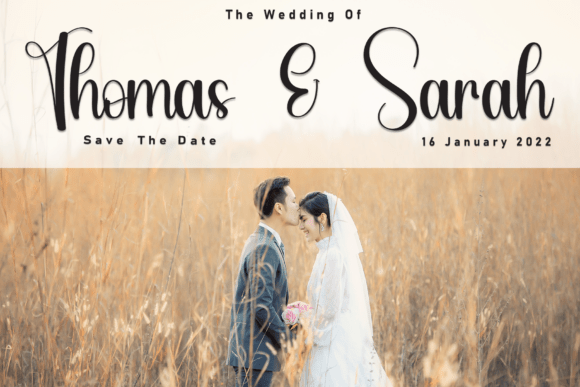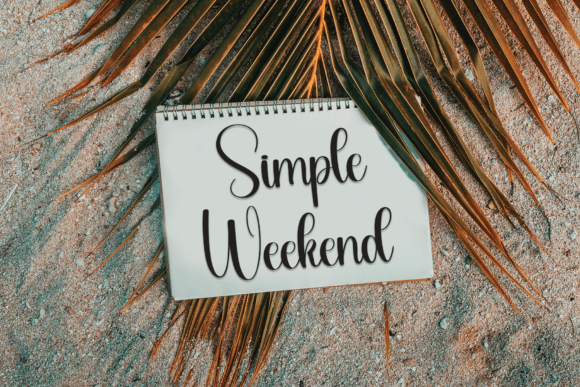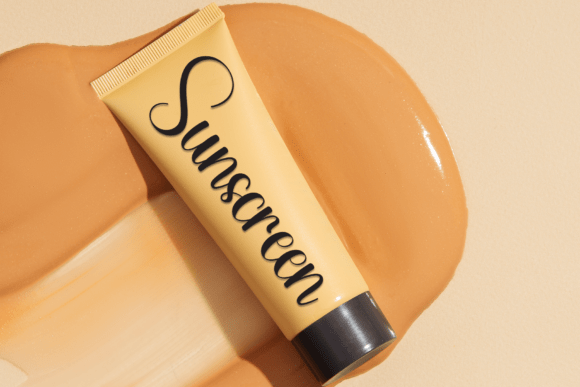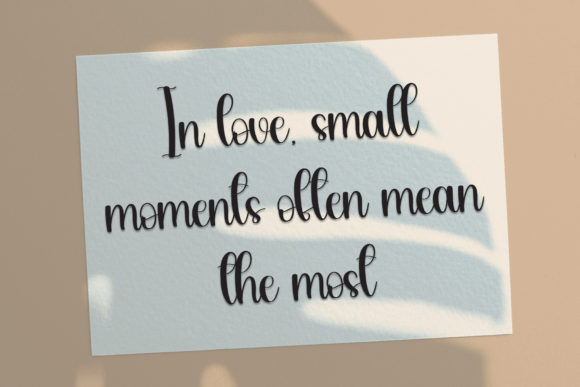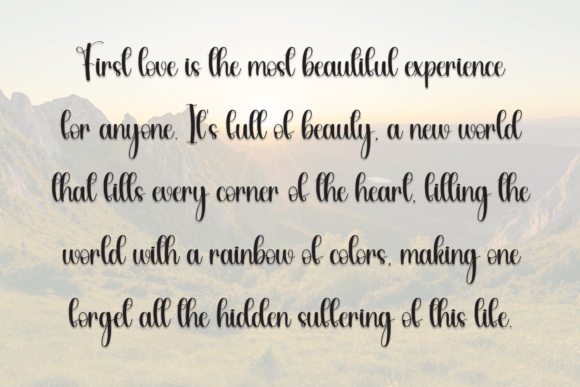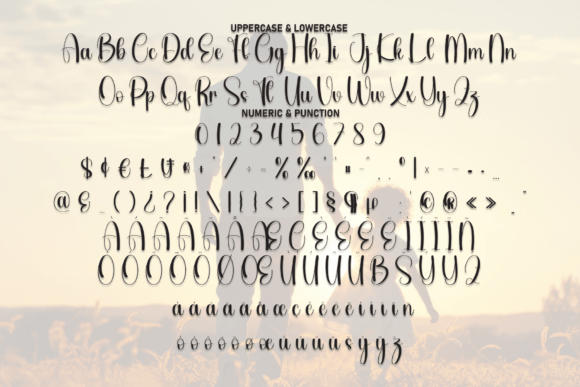
The Enchanting World of Father Font: A Designer’s Dream Come True
I’ll never forget the moment I stumbled upon Father Font while working on a wedding invitation project for a dear friend. The client wanted something elegant, whimsical, and utterly unique. As I scrolled through font after font, nothing seemed quite right – until I laid eyes on Father Font. Its captivatingly hand-forged design and irresistible charm instantly won me over. I knew right then and there that this typeface was going to be the perfect fit for my project.
So, what makes Father Font so special? Here are a few things that I absolutely adore:
- ✨ Elegant and whimsical: Father Font effortlessly balances sophistication with playfulness, making it perfect for a wide range of creative projects.
- ✅ OpenType features: This font boasts an impressive array of OpenType features, including stylistic alternates, ligatures, and glyphs that add an extra layer of depth and character to your designs.
- 💫 Versatility: Whether you’re designing wedding invitations, business cards, or social media graphics, Father Font adapts seamlessly to any style or format.
Of course, no font is perfect, and Father Font does come with a few minor quirks:
- 🤔 Limited kerning options: While the font’s default kerning is excellent, you may find that some character combinations require manual adjustment for optimal results.
- ⚠️ Not ideal for body text: Due to its elegant, cursive nature, Father Font is best suited for headlines, titles, and short paragraphs rather than lengthy blocks of text.
The Story Behind Father Font: A Glimpse into the Designer’s Inspiration
While the actual story behind Father Font remains a mystery, it’s easy to imagine that its creator was inspired by the whimsical world of fairy tales and classic literature. With its enchanting, hand-forged design, it’s clear that Father Font was crafted with love and a deep understanding of the magic that typography can bring to a design.
| Font Name | Father Font |
| What makes Father Font so unique? | Father Font’s captivatingly hand-forged design, elegant charm, and extensive OpenType features set it apart from other fonts. |
| Is Father Font suitable for body text? | No, Father Font is best suited for headlines, titles, and short paragraphs due to its elegant, cursive nature. |